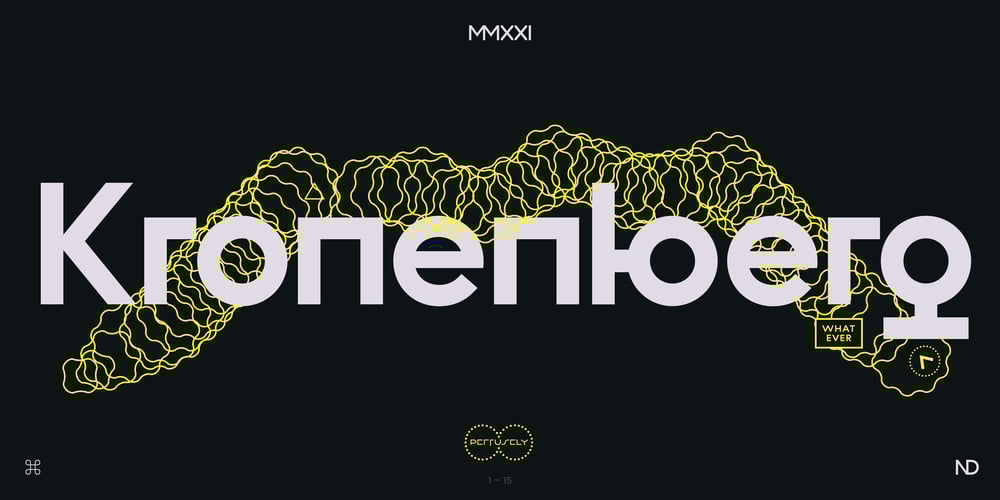
ND Kronenberg Font Family was designed by Wolf Boese and published by NeueDeutsche. ND Kronenberg contains 8 styles and family package options. Moooorrrttyyyy, stop drooling over Jessica, the ND Kronenberg is a font family based on the connection found in the letter ю and extrapolated across a whole geometric sans serif, beeerp. A mutant freak futura of some kind. Excuse me. You can find these artifacts all over 3 scripts (Latin, Greek, and Cyrillic). That and set of various additional glyphs. Enjoy.